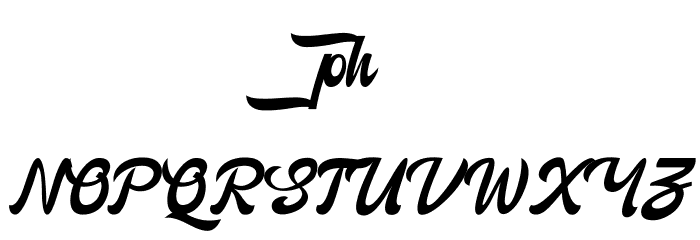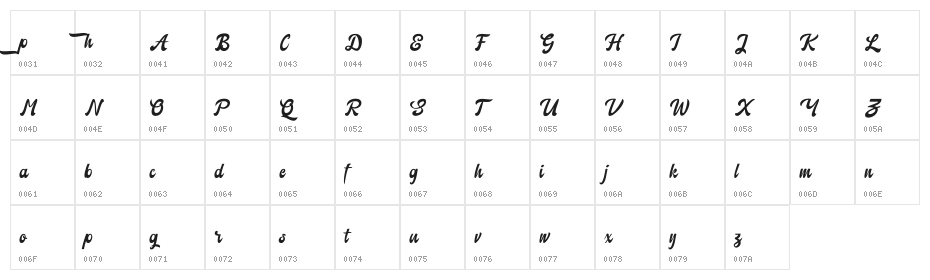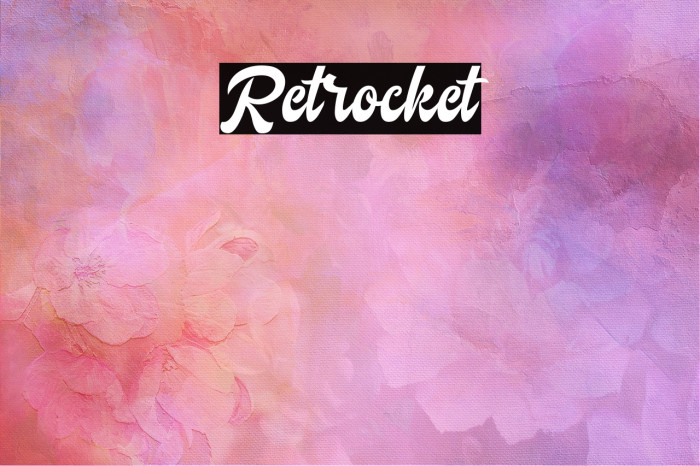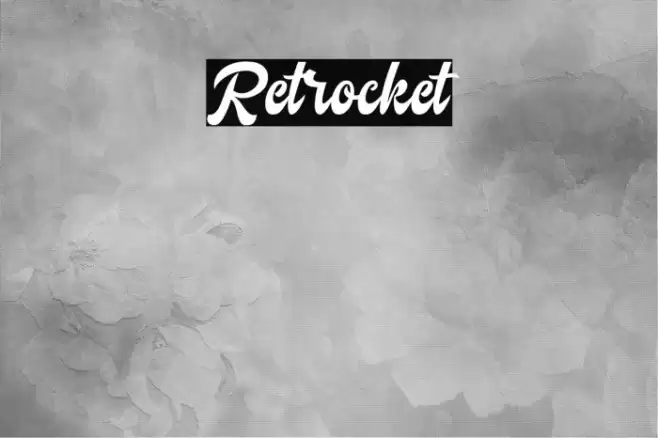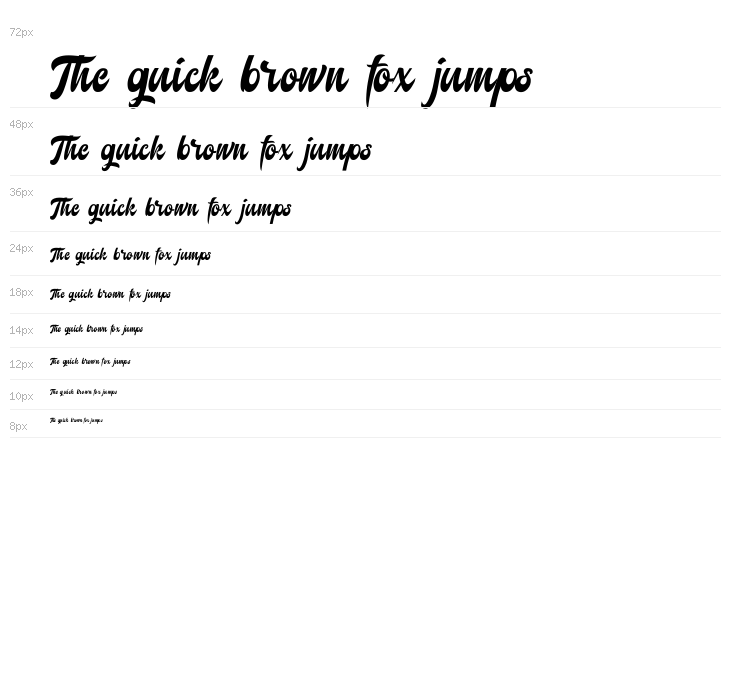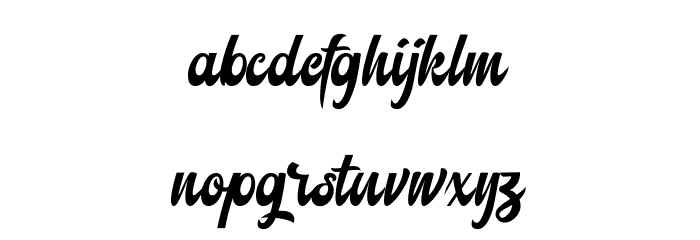
Retrocket Font
Retrocket Description
This font features a dynamic and flowing script style, characterized by its elegant and cursive letterforms. The uppercase letters exhibit a bold and confident presence, with sweeping curves and flourishes that add a touch of sophistication. The lowercase letters maintain a consistent flow, with smooth connections between characters, enhancing readability while preserving the decorative nature. The font's overall appearance is both classic and modern, making it versatile for various design applications. Its unique style is suitable for projects that require a personal and artistic touch, such as invitations, branding, and creative headlines.
| Use Case | Logos, Invitations, Headlines |
| Proposed Projects | Ideal for wedding invitations, branding, logos, and artistic headlines. |